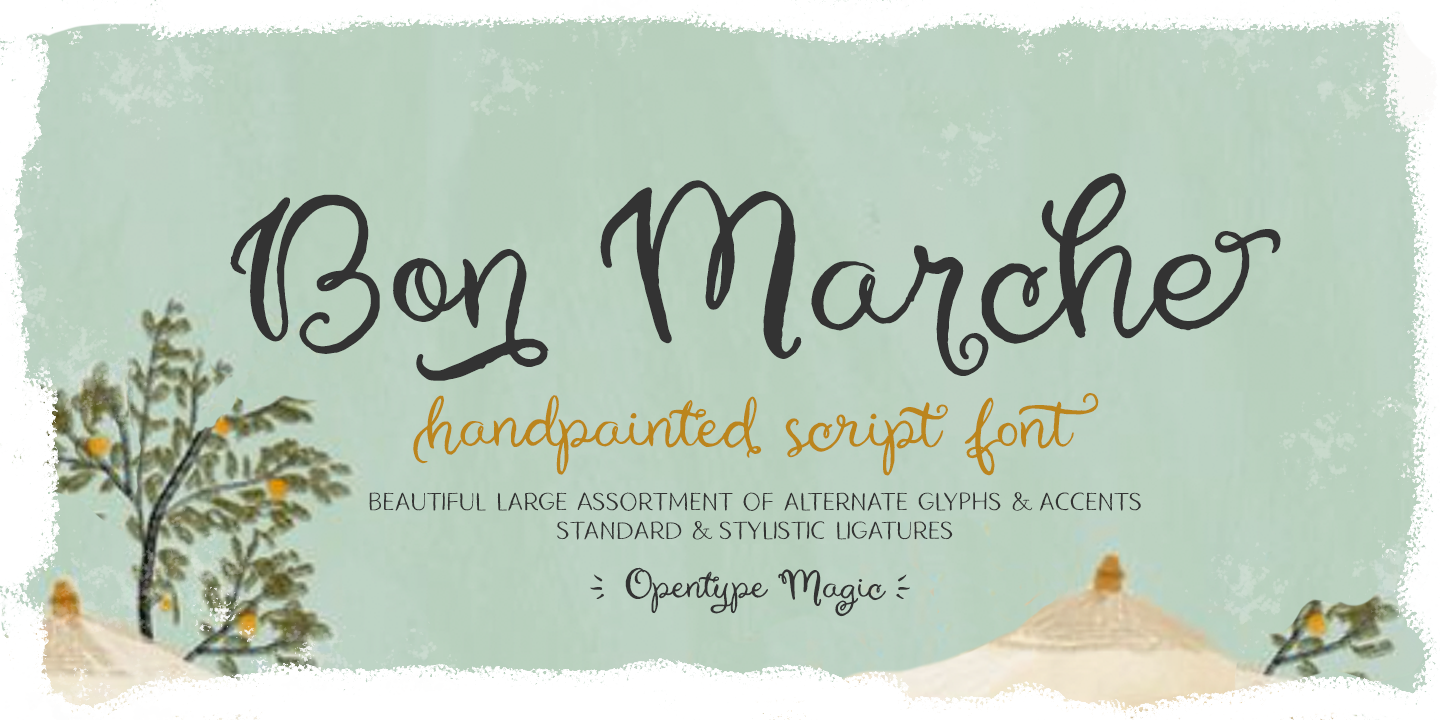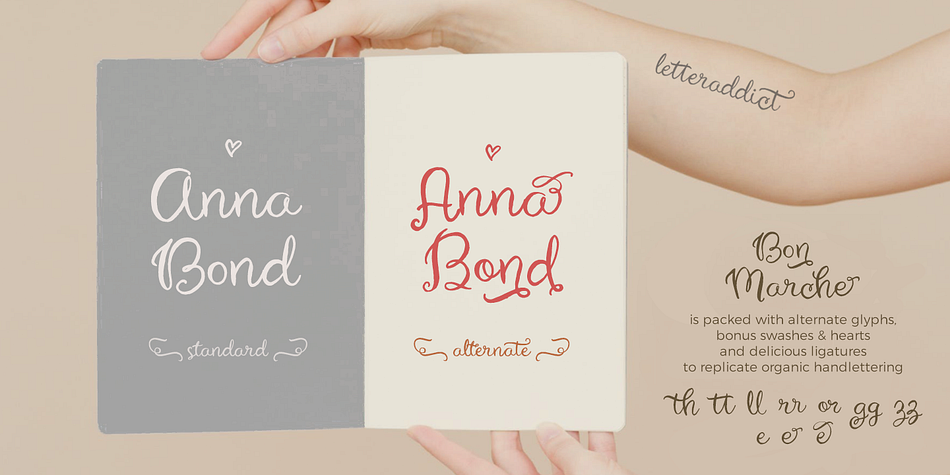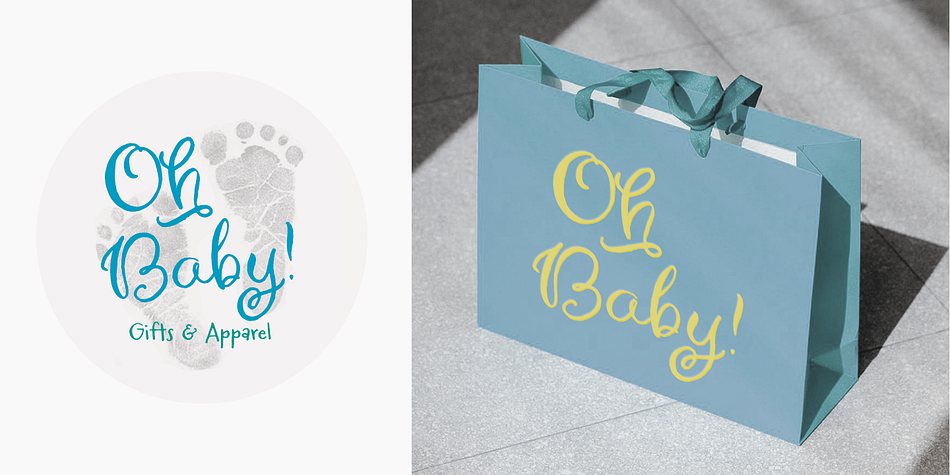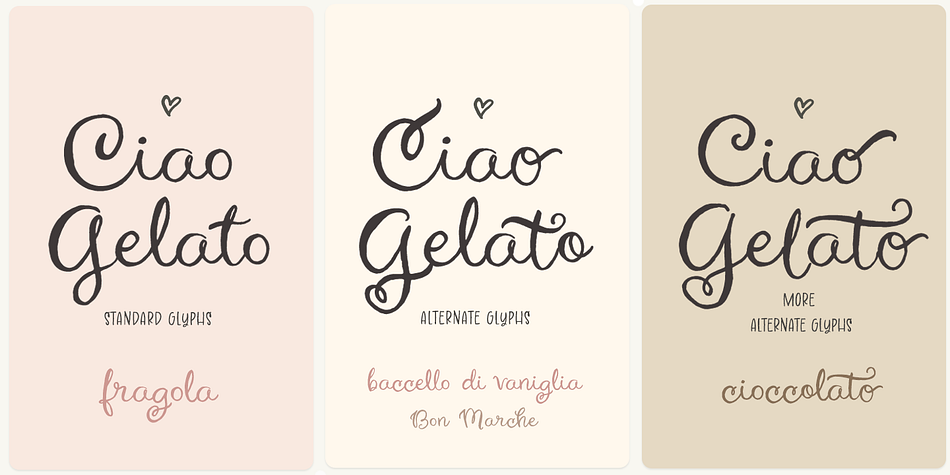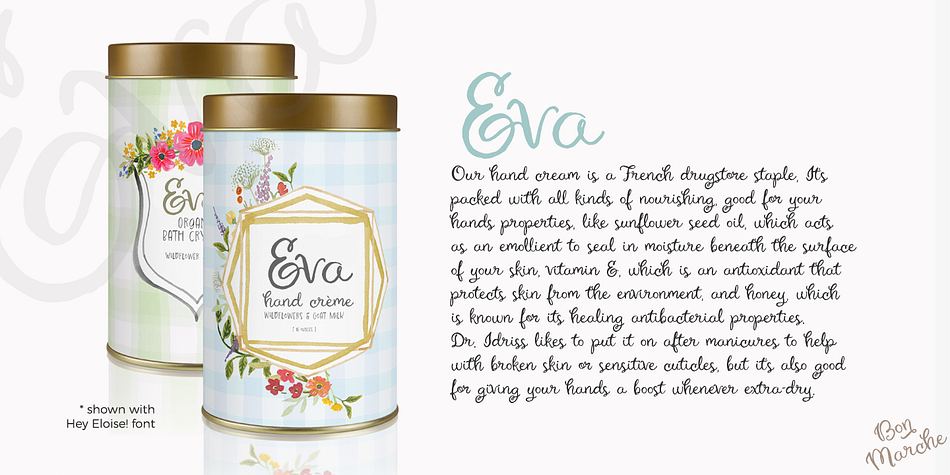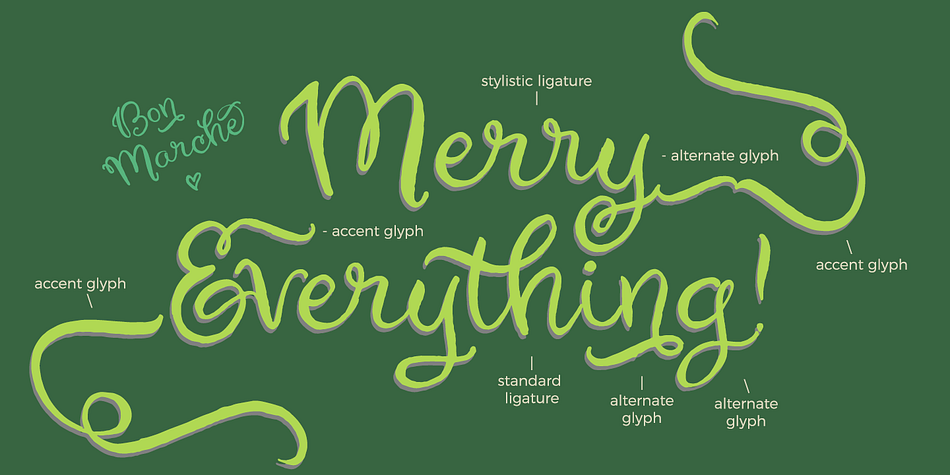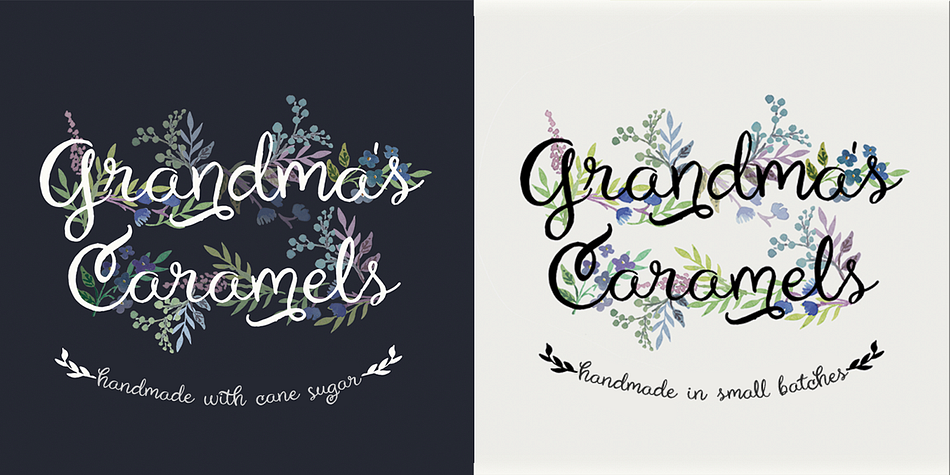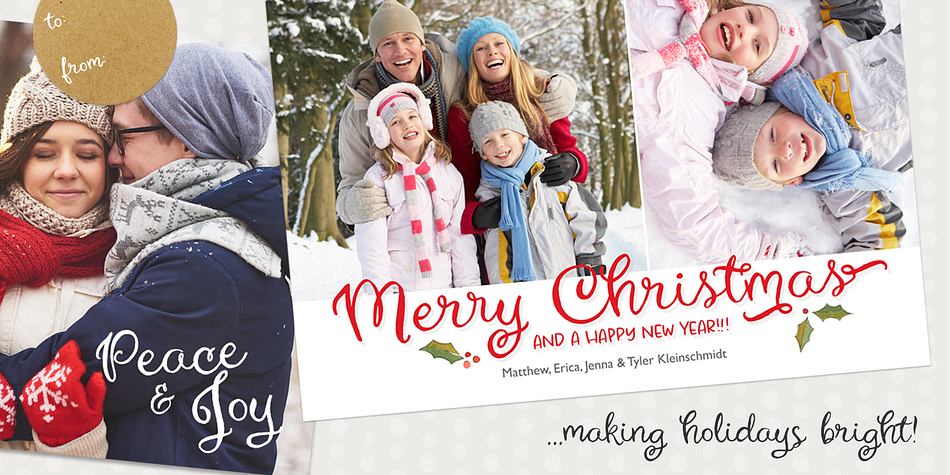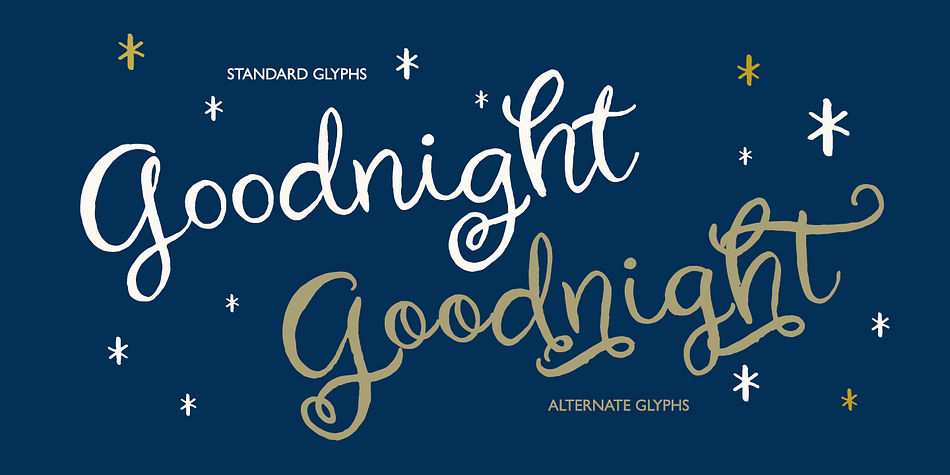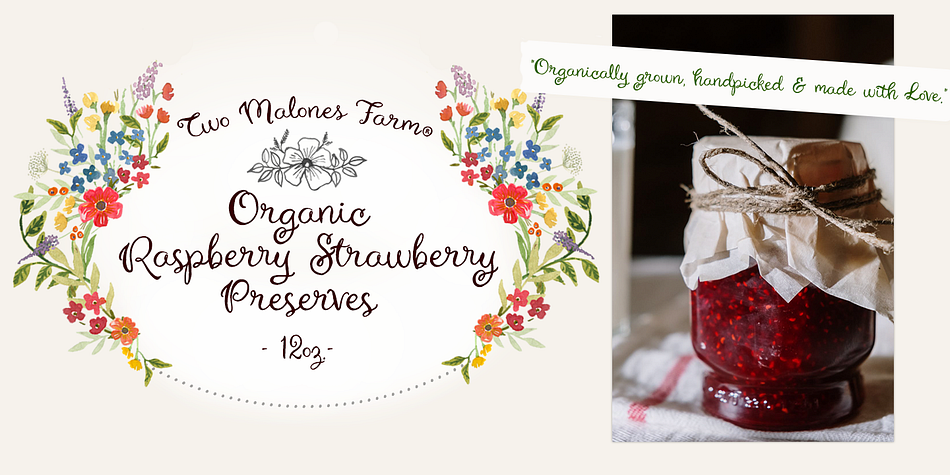
Designed by Stuart Sandler and Crystal Kluge, Bon Marche is a script font family published by Tart Workshop.
Bon Marche
Enjoy morning at the farmer’s market, a hot cappuccino and a fresh bouquet to brighten the day. Bon Marche is a merry folk style brush script perfect to pair with illustrations, lovely on packaging and delightful gracing books and stationery. Think cheerful kids, yummy food and a carefree lifestyle.
Originally hand painted with round brush on textured paper, scanned & digitalized to delight the eye and warm the heart.
Includes full multilingual support, Open Type features including standard and stylistic ligatures and alternate glyphs. Bonus heart and swash glyphs.